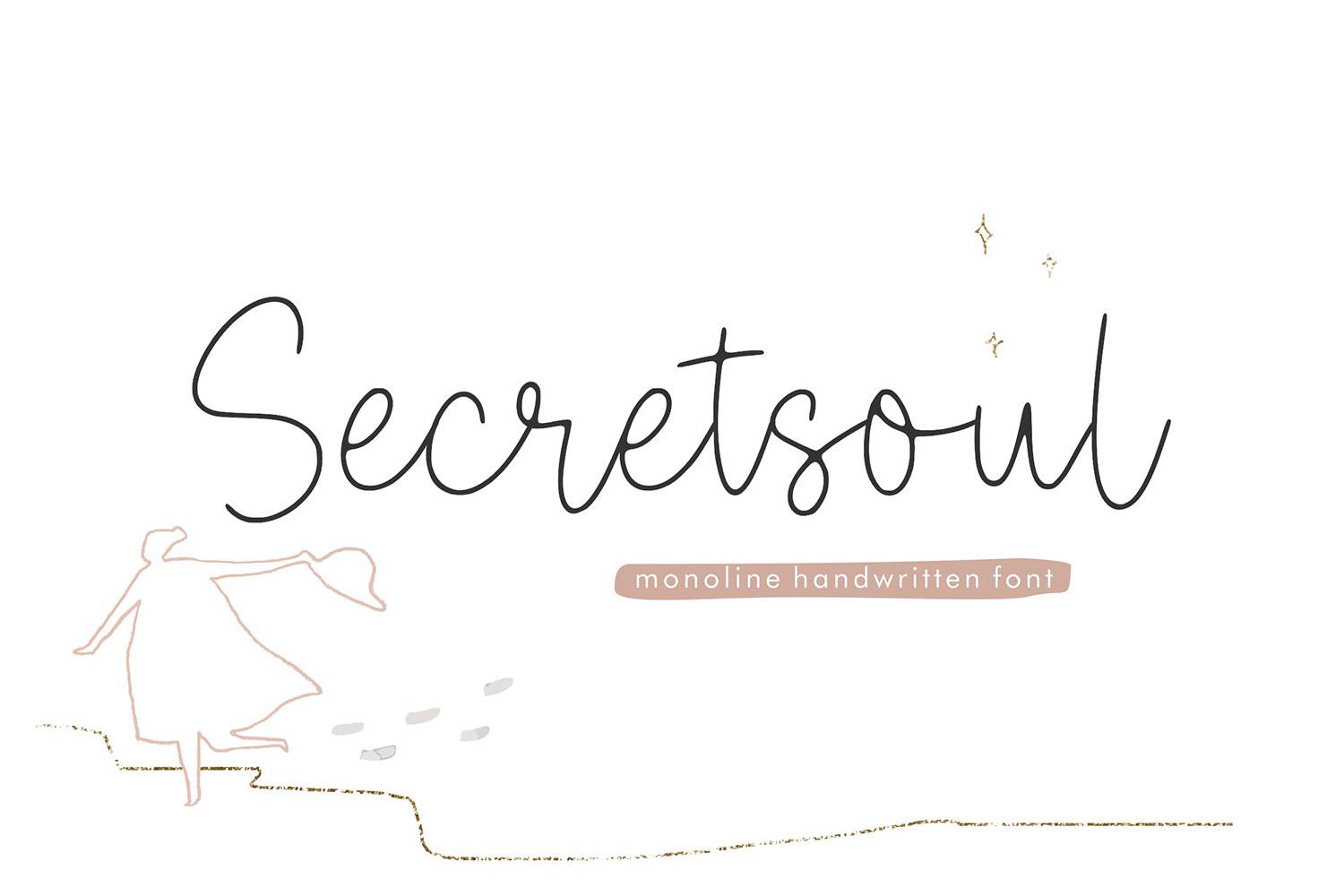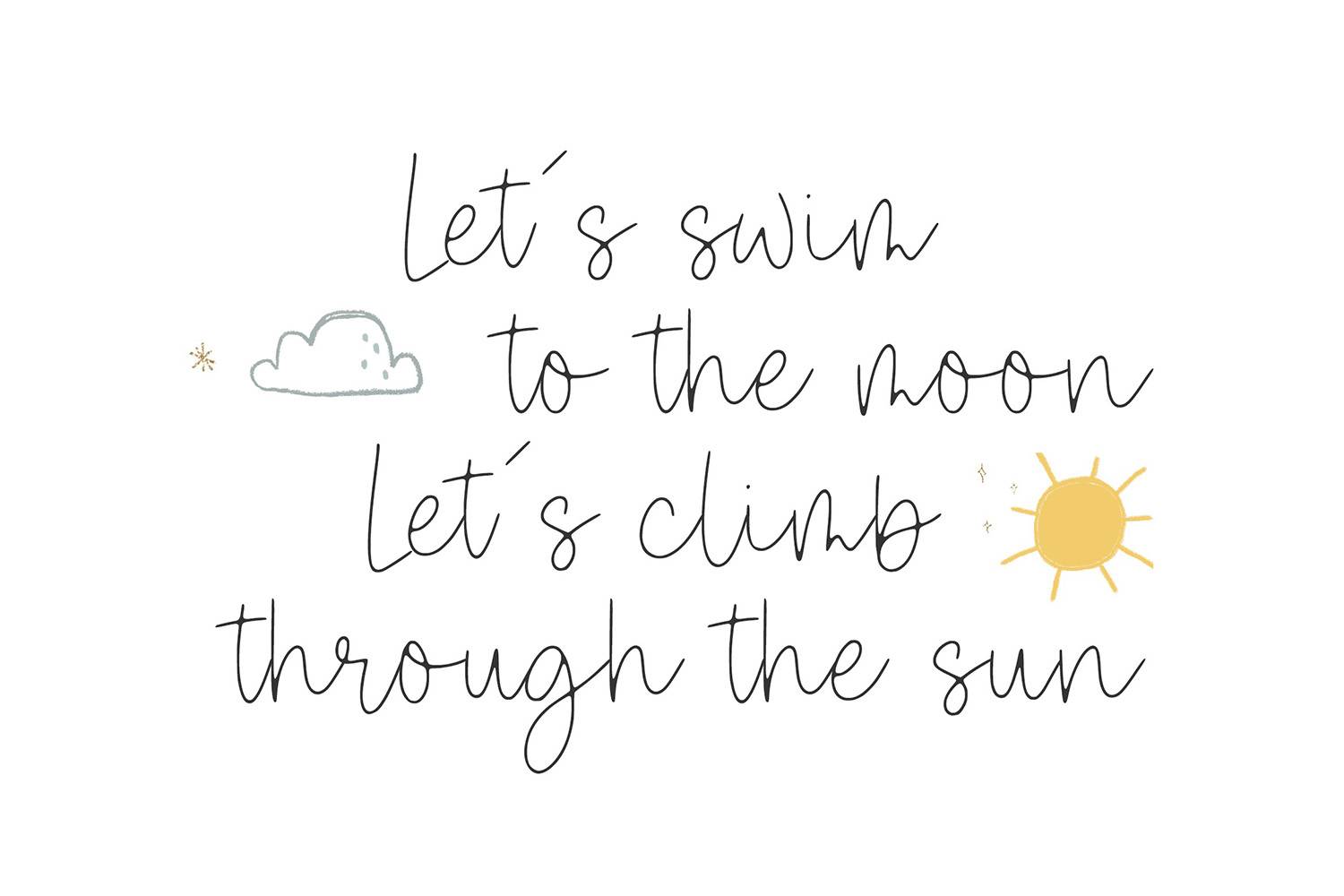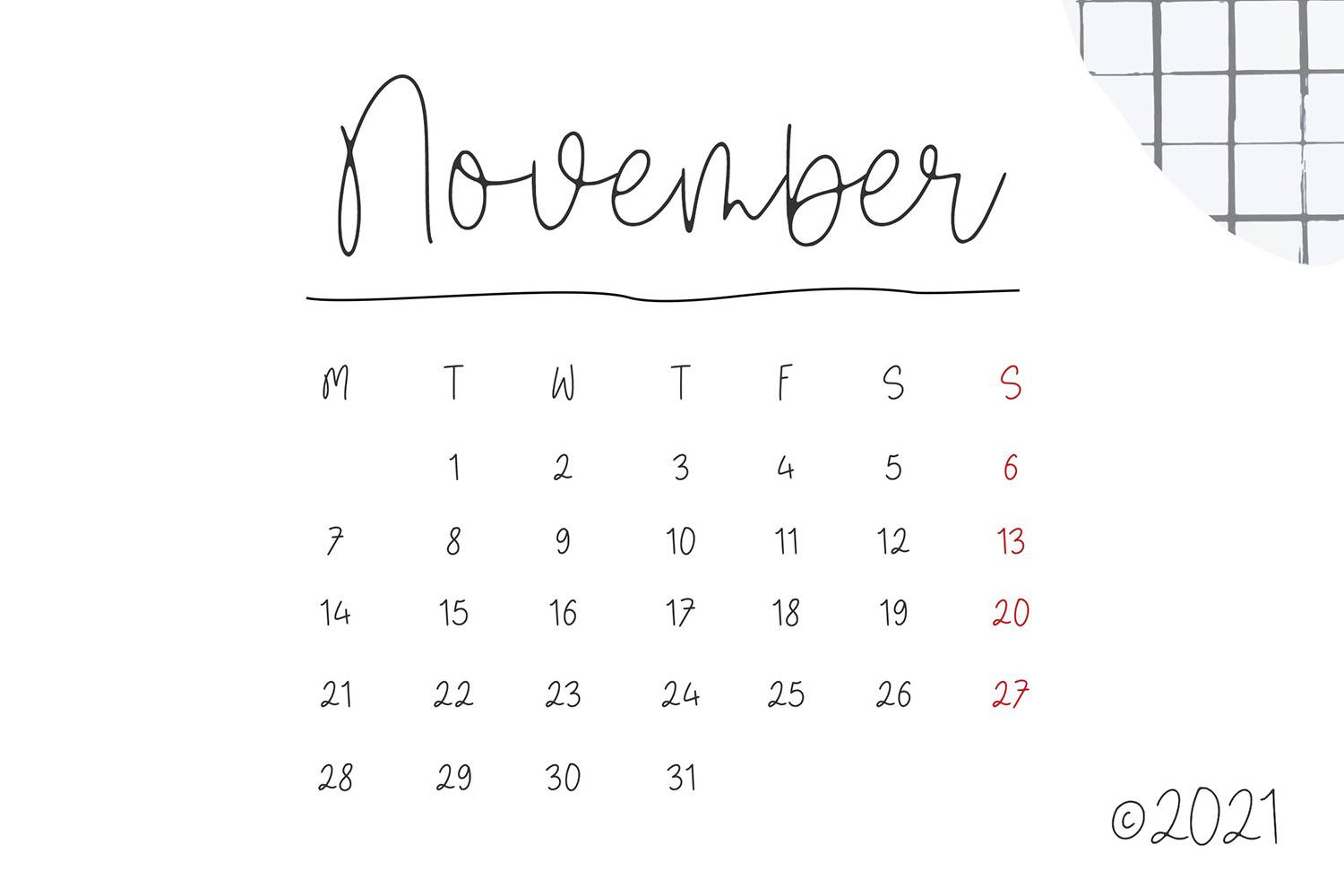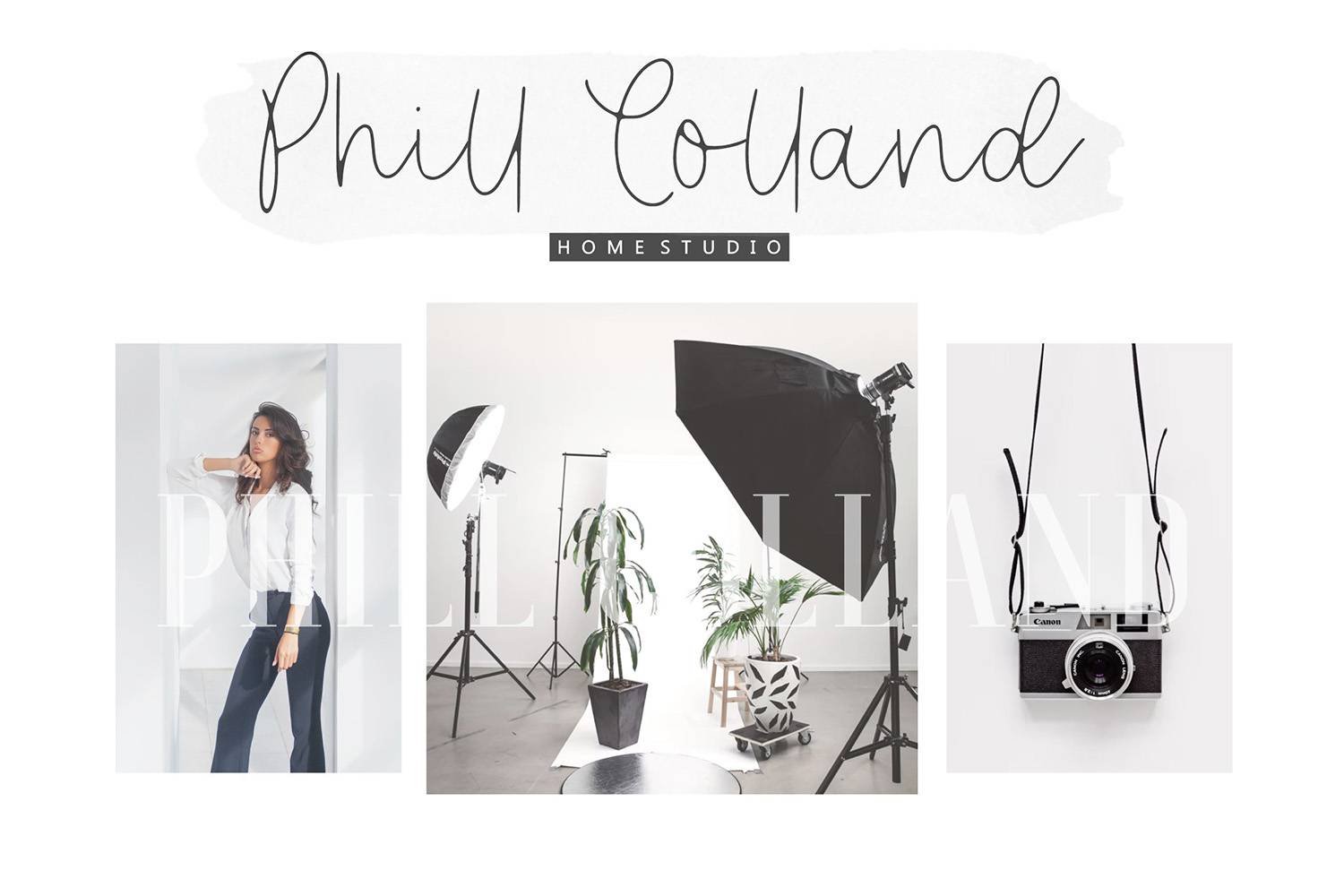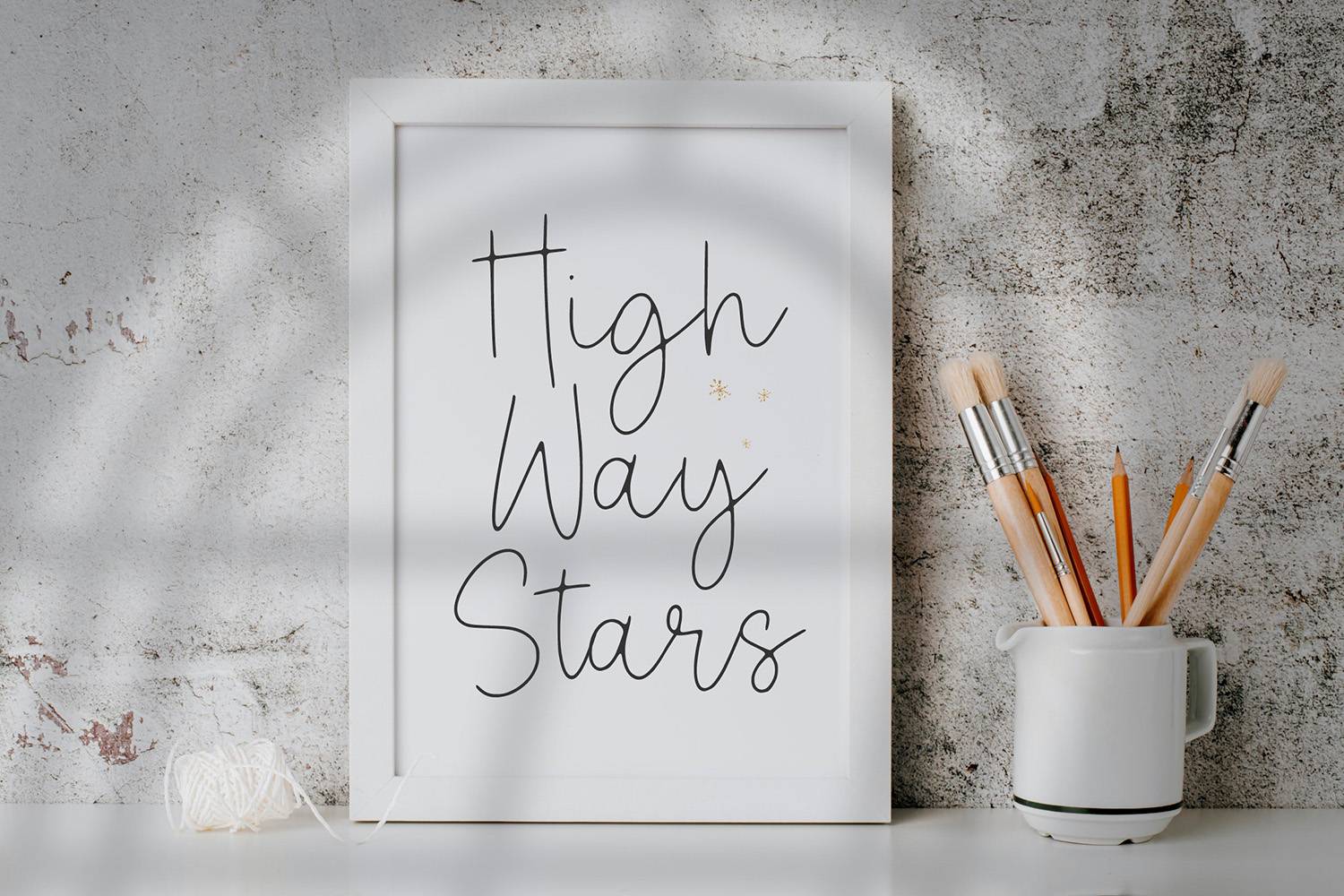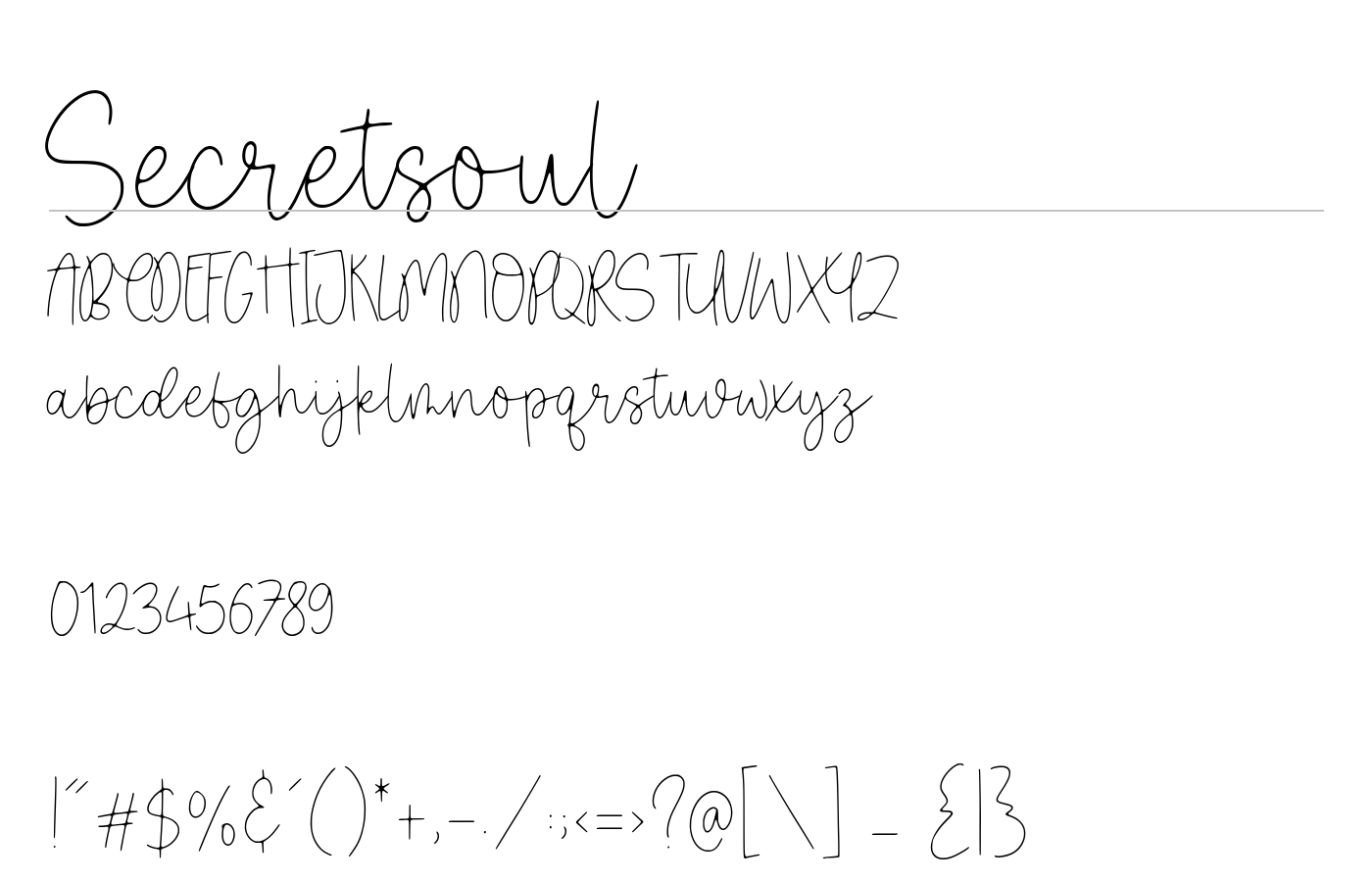
Secretsoul is a delicate, handwritten script font with a thin, airy stroke that feels light and personal. Its tall, narrow letterforms and playful loops convey a friendly, informal charm, making it ideal for invitations, casual branding, or creative projects that seek a warm, approachable touch. This font works best where a gentle, intimate feel is desired, adding character without overwhelming the design.
Secretsoul Font
About Secretsoul Font